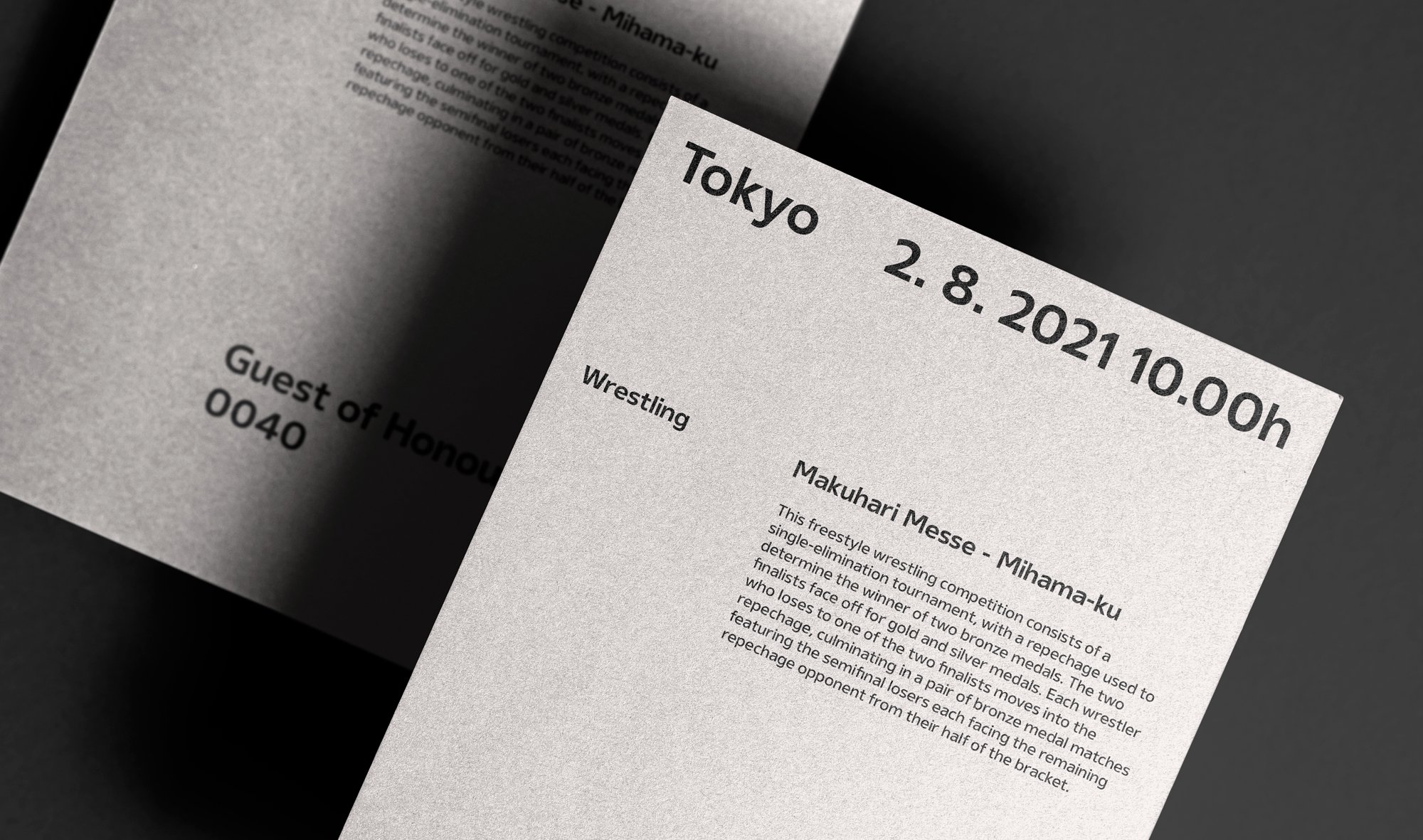
Gelder Sans is a modern sans-serif typeface inspired by the iconic Frutiger. Named in honour of my grandparents, who carry the surname Gelder and may have descended from the Netherlands, this typeface pays homage to family heritage while nodding to the rich tradition of Dutch type design. Gelder Sans fits differently than the grotesque or humanist style but instead takes the best elements from both, discarding what isn't needed. Gelder Sans ensures high readability and a friendly appearance with its organic shapes, open apertures, and uniform stroke widths. It is perfect for various applications, from digital interfaces to printed materials.
The font includes over 1000 characters, eight weights, and italics for versatile typography. It boasts ten number variations, alternate characters (I, M, Q, R, a, e, g, l, y), unique glyphs like arrows, ligatures, and small caps. It also has extensive language support encompassing Western, South, and Central Europe and Vietnamese.